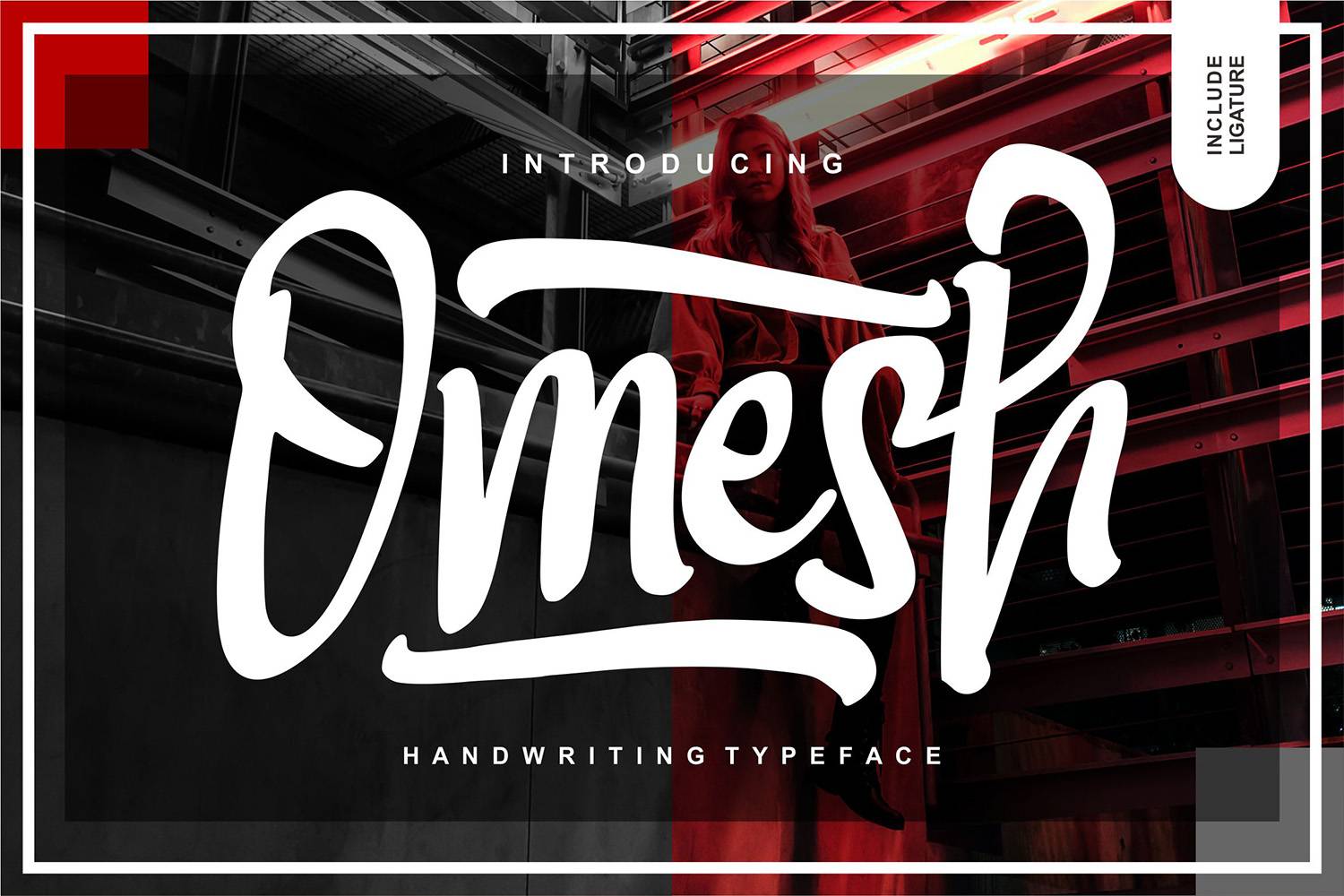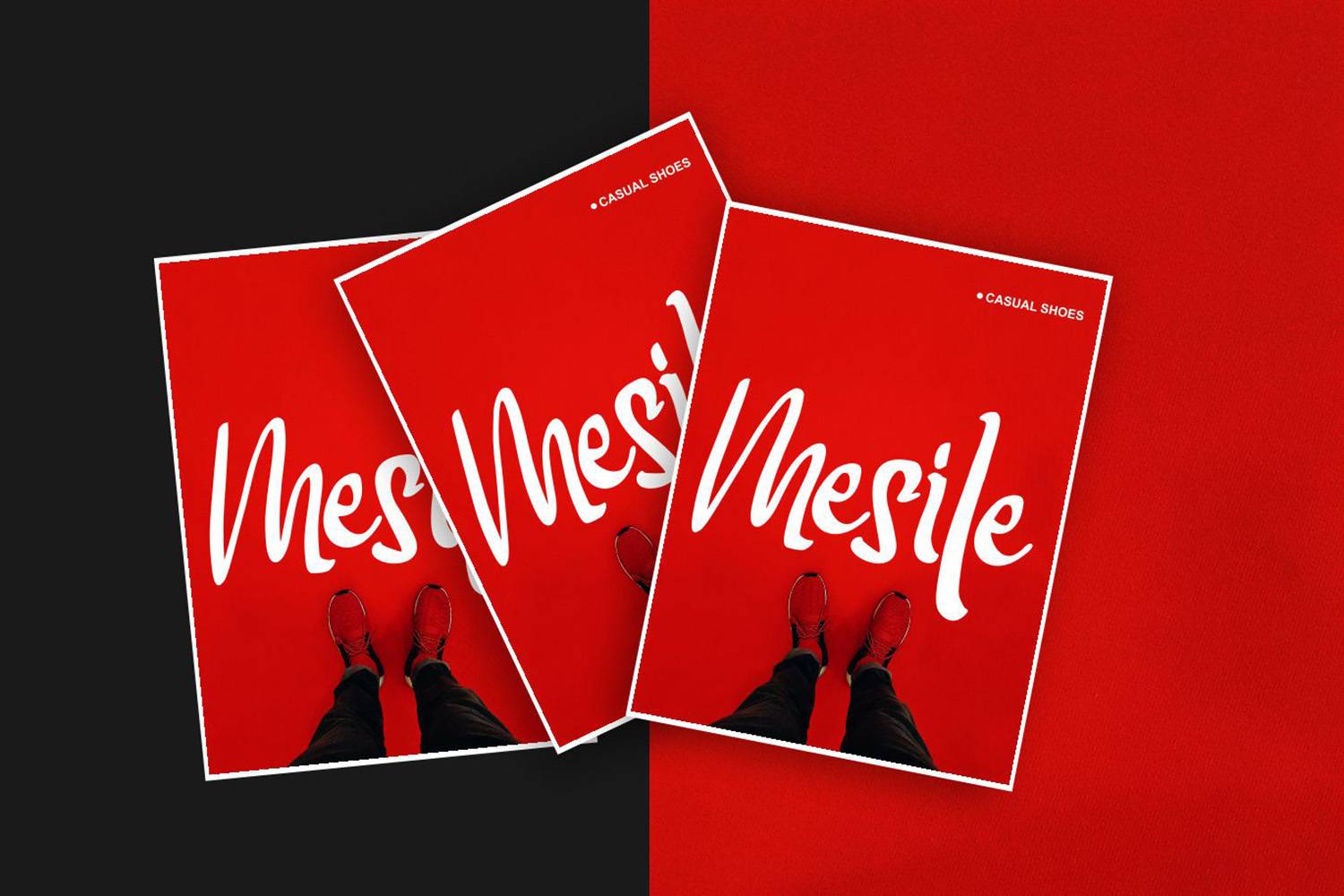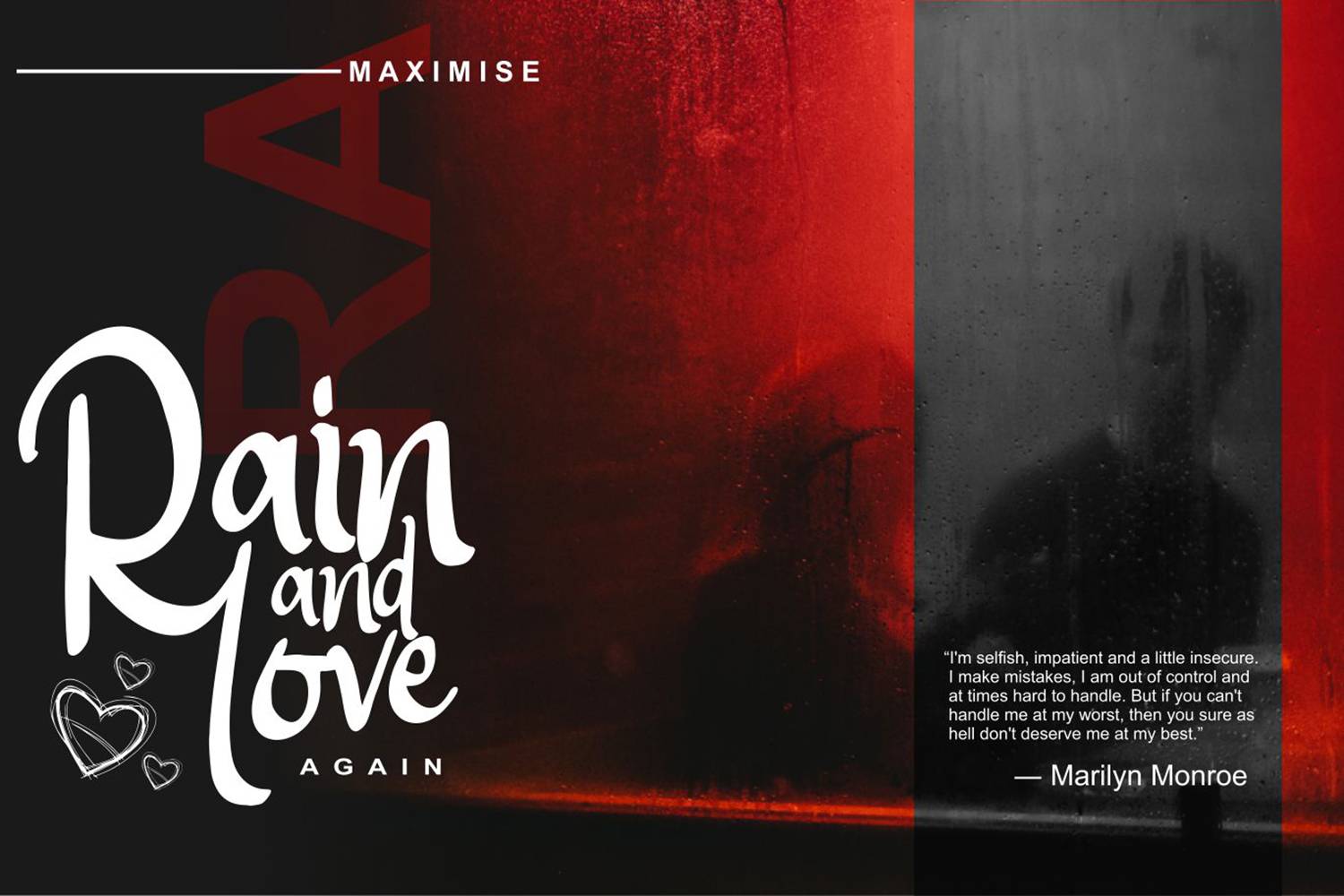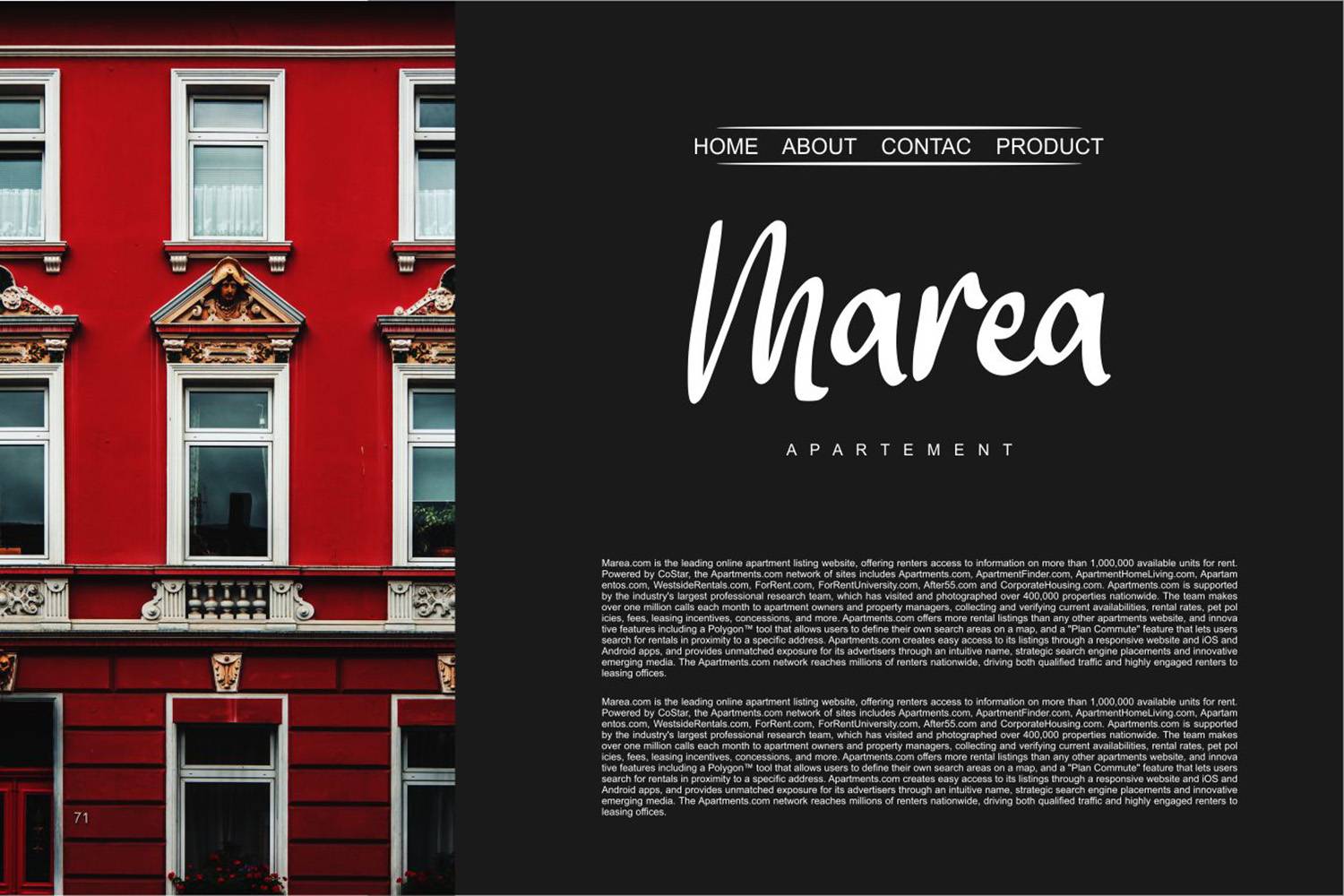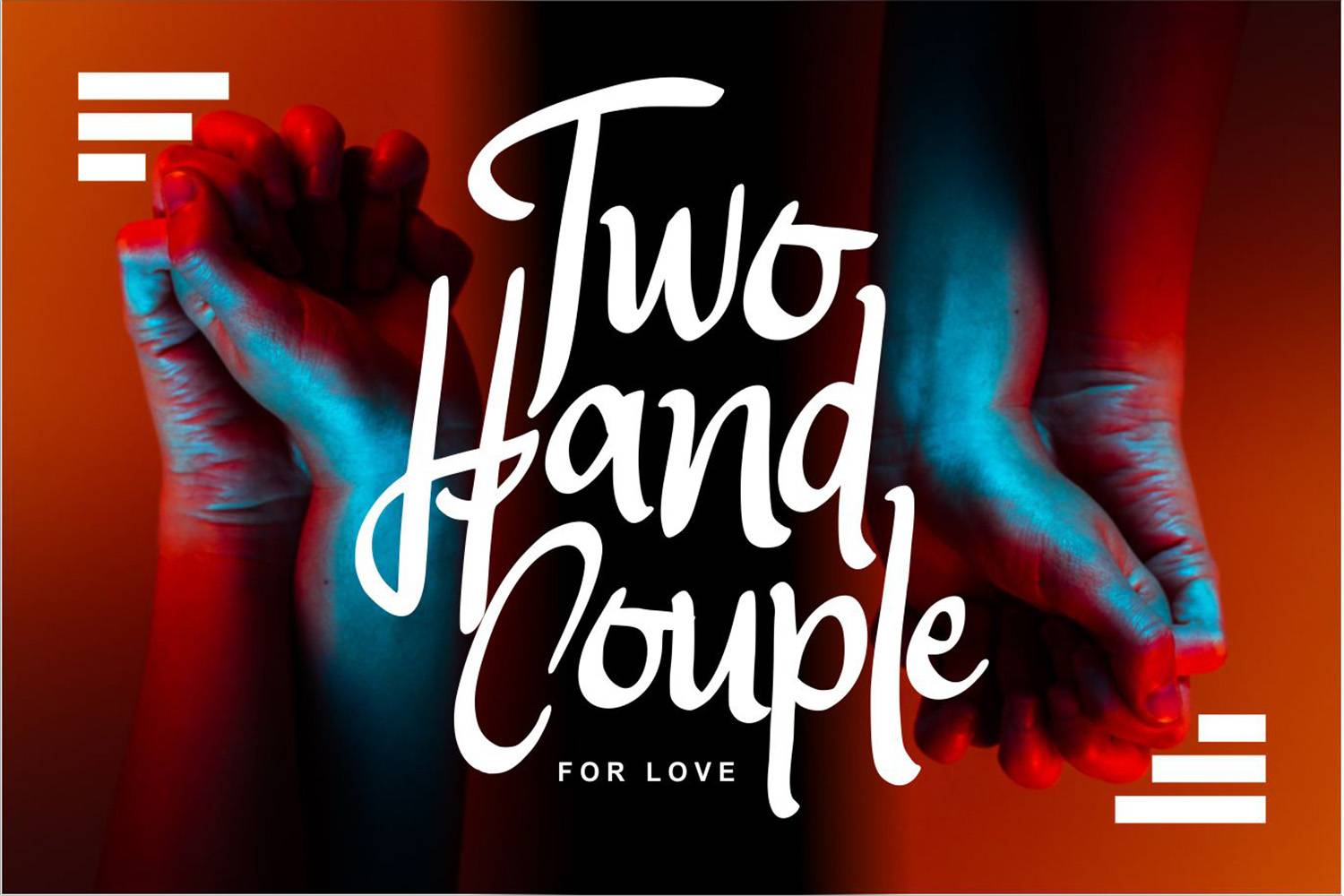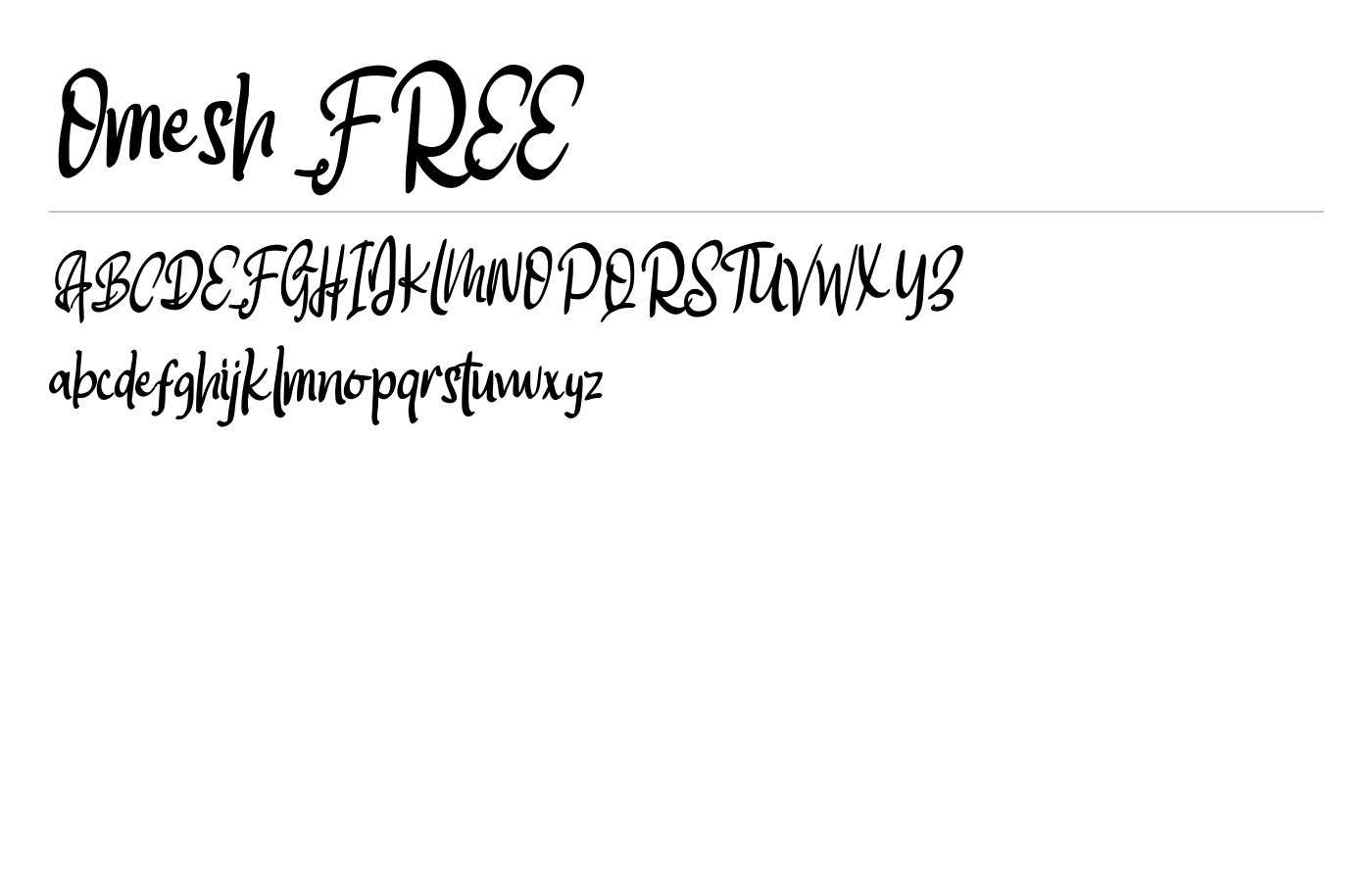
Omesh is a lively and informal handwritten script font featuring a playful mix of tall, slightly condensed letterforms with uneven strokes that give it a natural, hand-drawn feel. Its distinctive, casual style makes it perfect for creative branding, invitations, or projects seeking a personal and approachable touch while still maintaining clear readability. This font works especially well in designs that aim to convey warmth, friendliness, and individuality.
| Font family | Omesh Font |
| Designer | Fannan Studio |